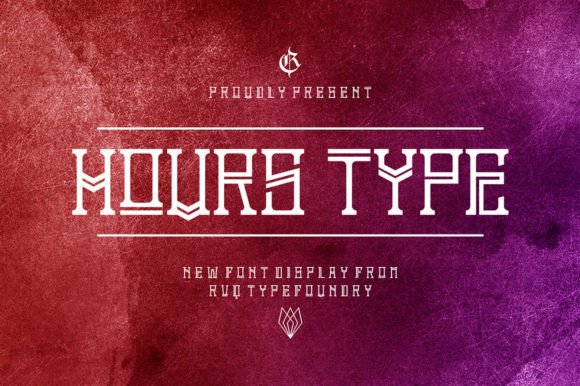
Dive into the world of typography with Hours Font, a display font that exudes modern aesthetics. Its sharp, defined lines and meticulously crafted shapes command attention in any design endeavor. Whether you're a seasoned designer or just starting, Hours Font empowers you to make a lasting impression.
Hours Font's adaptability shines in various applications, from branding and editorial layouts to captivating social media graphics. This versatile font effortlessly elevates your designs, adding a touch of sophistication and modernity. Its versatility allows you to seamlessly navigate different design landscapes, ensuring your projects stand out.
With Hours Font, crafting stunning resumes becomes an effortless task. Its clean and precise letterforms lend a professional edge to your job applications, helping you make a powerful first impression. The font's clarity ensures your skills and achievements shine through, giving you a competitive advantage in the job market.
Unleash your creativity and explore the endless possibilities of Hours Font. Its versatility and modern design make it the perfect choice for those seeking to make a statement. Embrace the power of typography and elevate your designs to new heights with Hours Font.